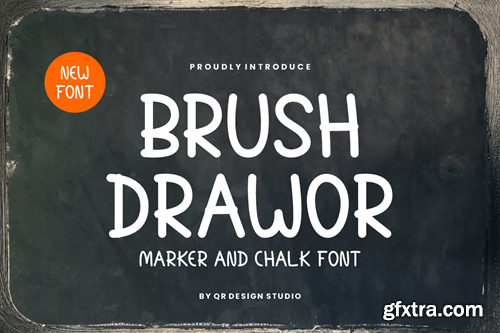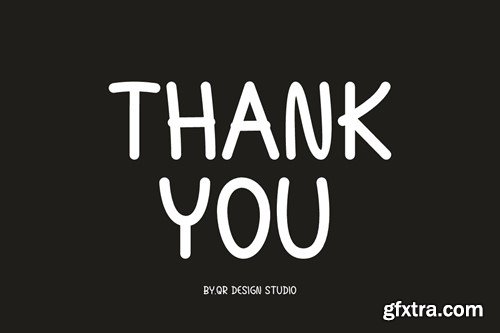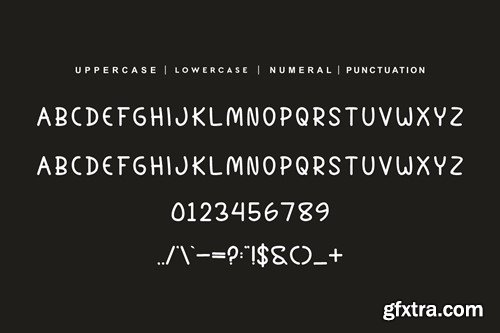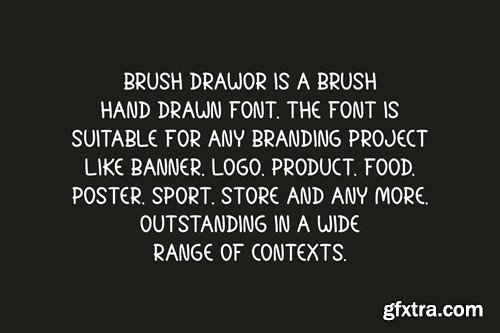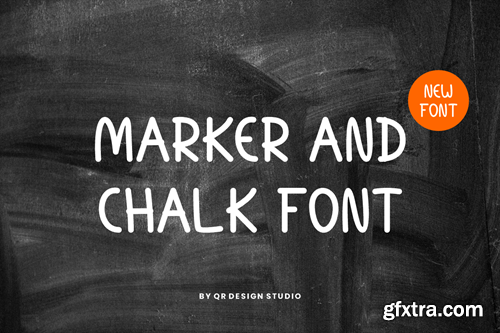
刷笔设计师 - 纤维笔和记号笔字体 8P474SE
Brush Drawor - Chalk & Marker Font 8P474SE
Brush Drawor - Chalk & Marker Font
Brush Drawor Font is a brush and authentic display font. The font is suitable for any branding project like kids, poster, logo, sport, and many more. Outstanding in a wide range of contexts.